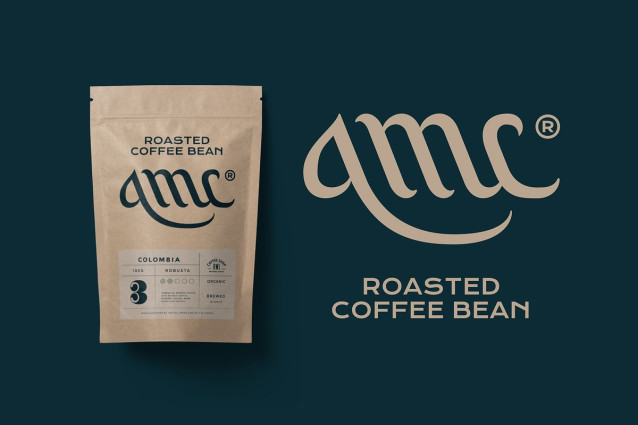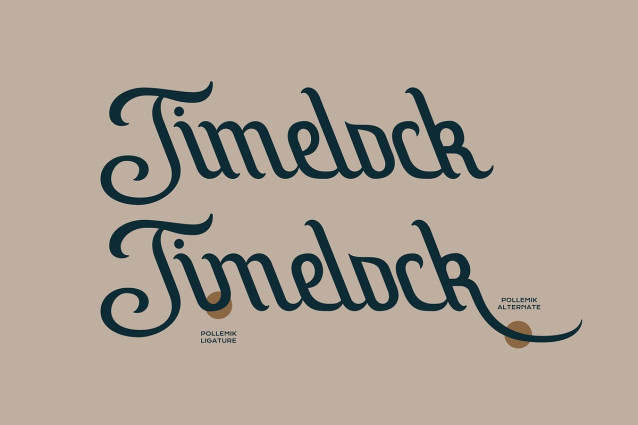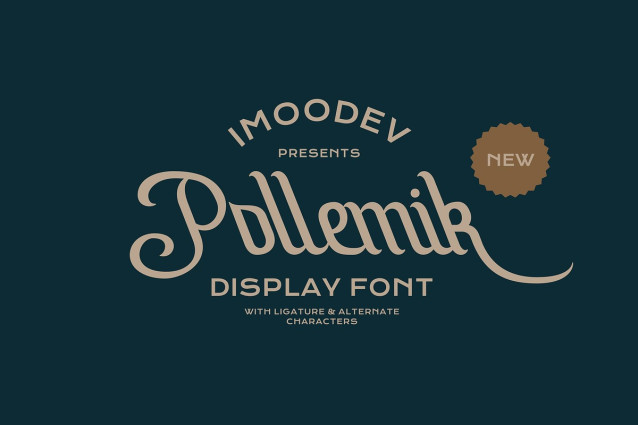
Pollemik Font
Pollemik Font is a elegant vintage script font that effortlessly blends timeless sophistication with a modern, expressive flair. Designed with sweeping swashes and elegant ligatures, this font elevates any project with a sense of artistry and sophistication.
Its graceful, flowing letterforms and high contrast strokes capture the essence of classic calligraphy, while its playful curves add a contemporary touch.
Perfect for branding, packaging, editorial headlines, coffee labels, posters, and logotypes, Pollemik adapts seamlessly across digital and print formats. Its carefully balanced flow and vintage flair bring both sophistication and playfulness, making it the go to choice for impactful designs.